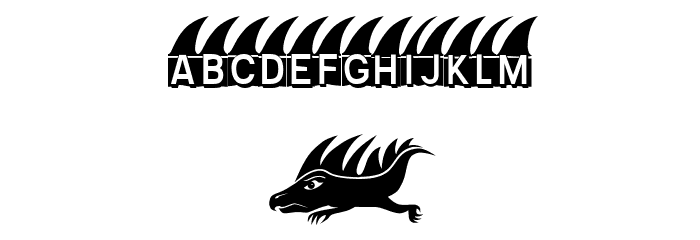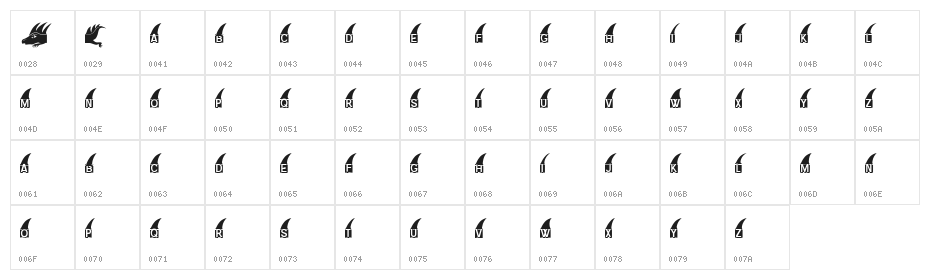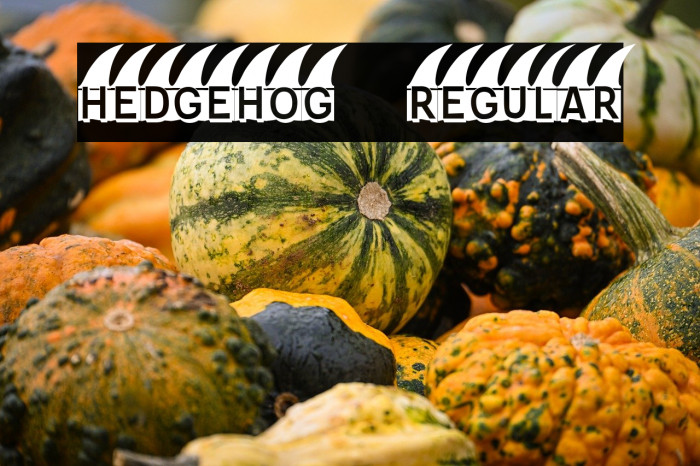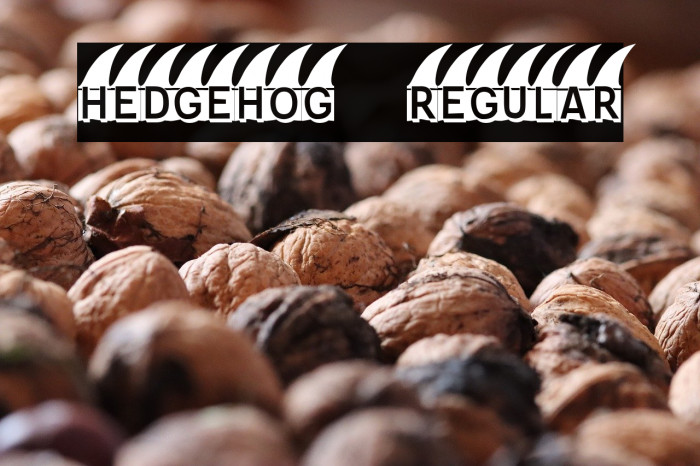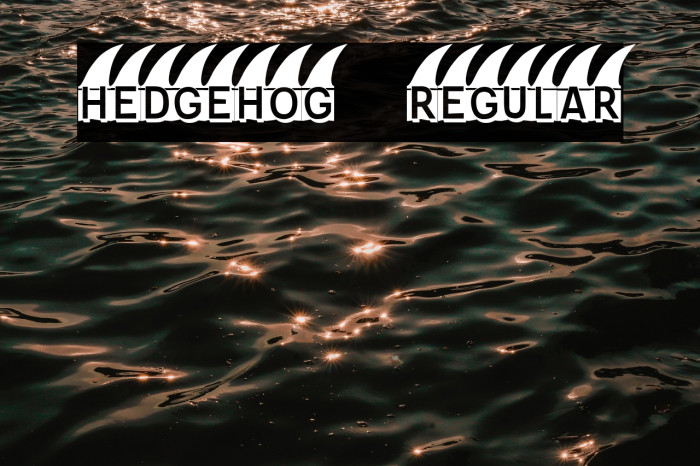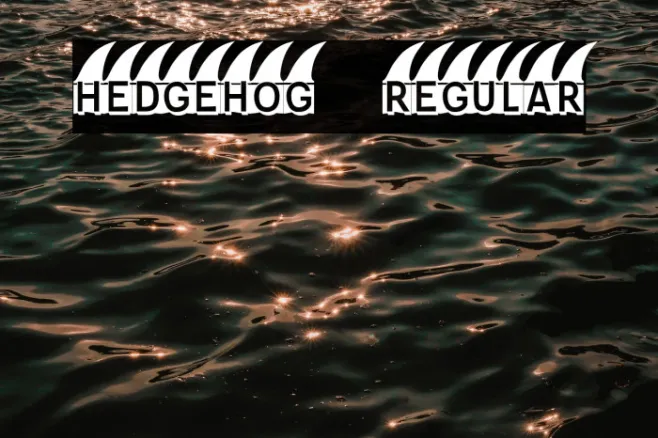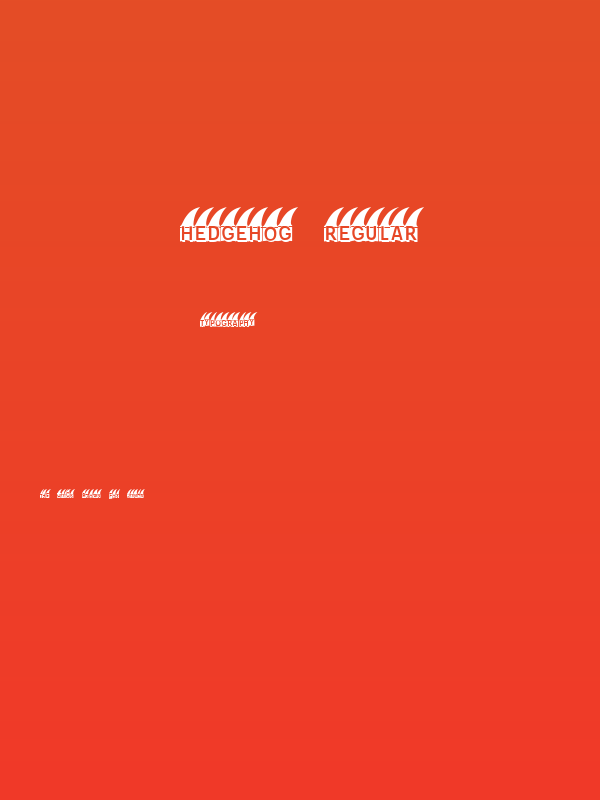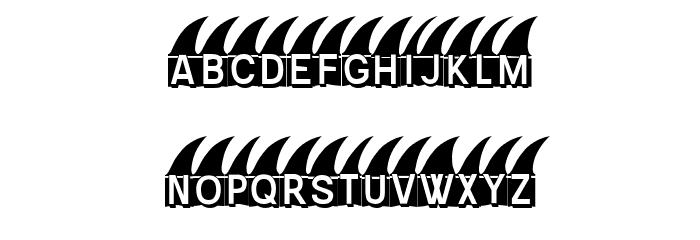
Hedgehog Regular Font
Hedgehog Regular Description
This font features a unique and playful design, characterized by bold, uppercase letters that are topped with stylized spikes resembling a hedgehog's quills. The letters are uniform in height and width, creating a consistent and structured appearance. The spikes add a dynamic and whimsical element, making the font stand out. The overall aesthetic is bold and eye-catching, suitable for creative and unconventional projects. The font's distinct style makes it ideal for use in branding, logos, and headlines where a fun and memorable impression is desired.
| Use Case | Logos, Headlines, Branding |
| Proposed Projects | Ideal for branding, logos, children's books, and playful advertising campaigns. |